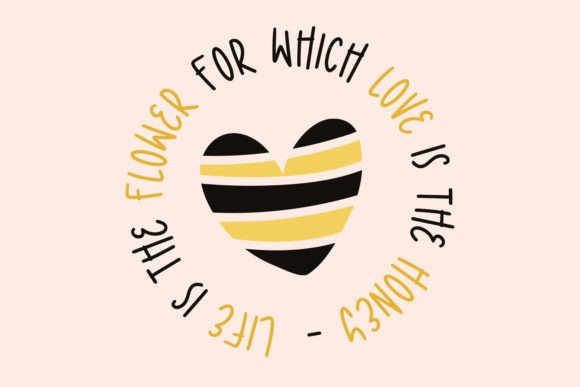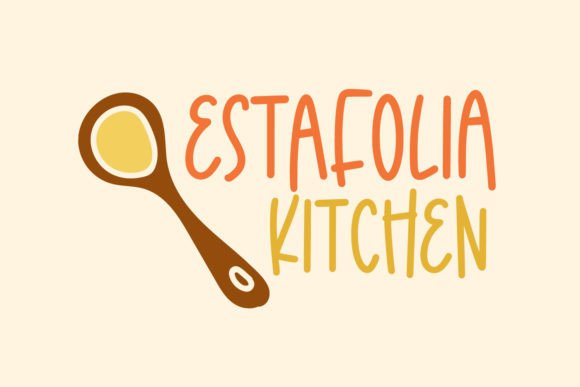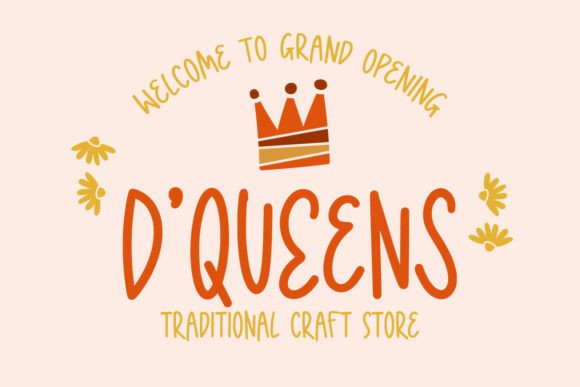
Introduction to Honey Splash Font
Honey Splash is a cheerful and cute handwritten display font ready to take your designs to the next level.
Honey Splash Font offers exceptional quality and versatility, making it a valuable addition to your design toolkit. Whether you’re creating for personal projects or commercial use, Honey Splash Font delivers professional results.